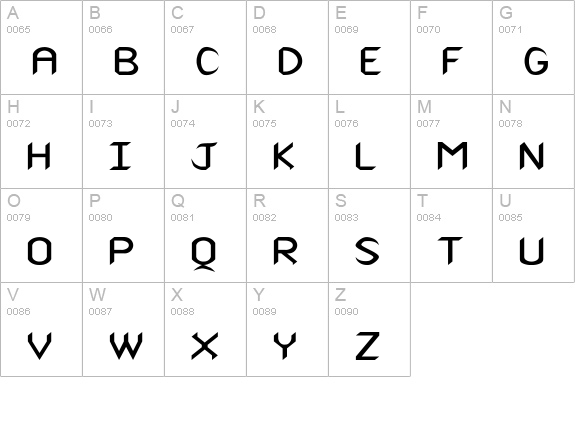
Cuneiform Wd Font Details
Cuneiform Wd font is a stunning typeface that brings a touch of ancient elegance to any design project. With its intricate cuneiform-inspired characters, this font is perfect for adding a unique and historical flair to your work. Whether you're designing a logo, poster, or website, Cuneiform Wd font is sure to make a statement. The best part? Cuneiform Wd font is completely free to download at FontsMarket.com. This means you can easily access this beautiful font and use it in your projects without any cost. Don't miss out on this opportunity to enhance your designs with the timeless beauty of Cuneiform Wd font. Download it today and let your creativity soar!